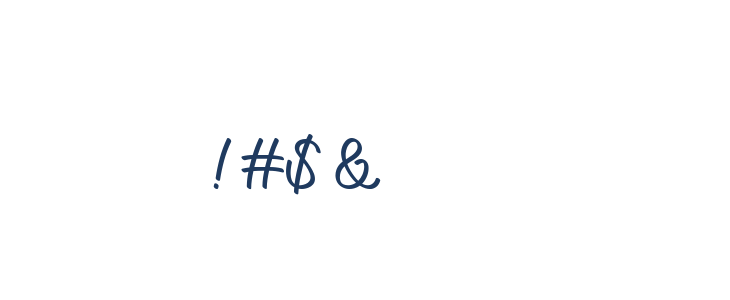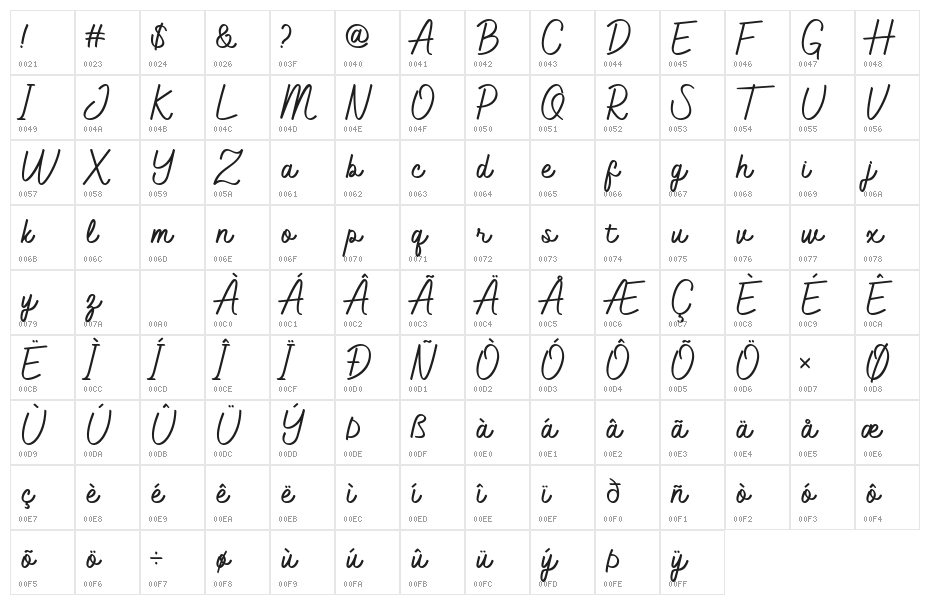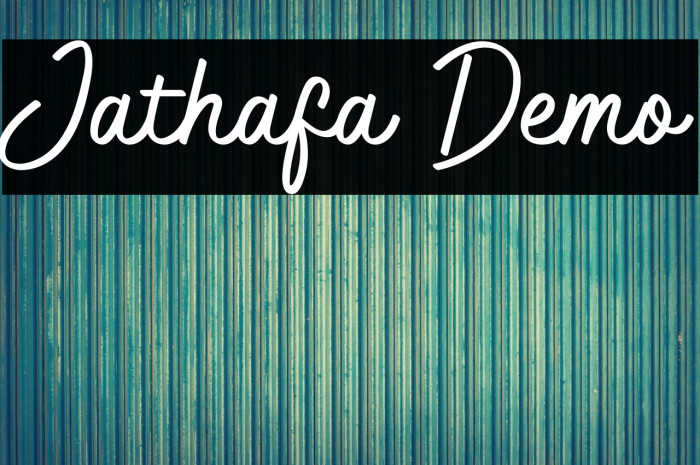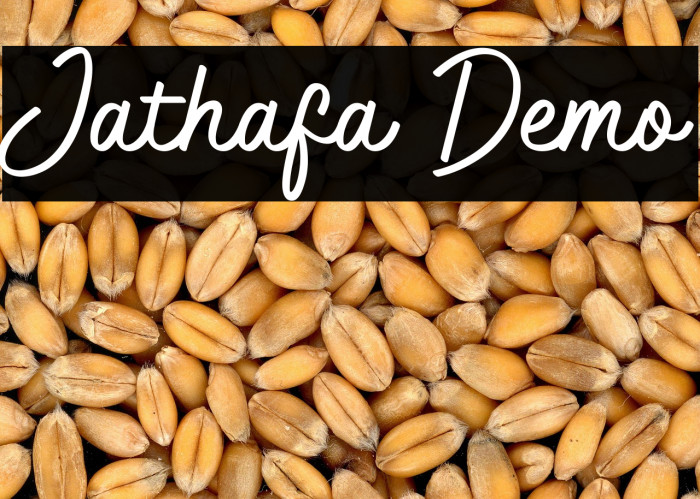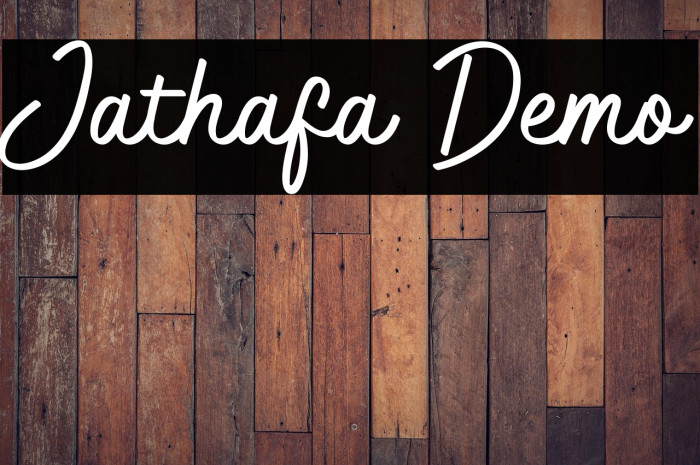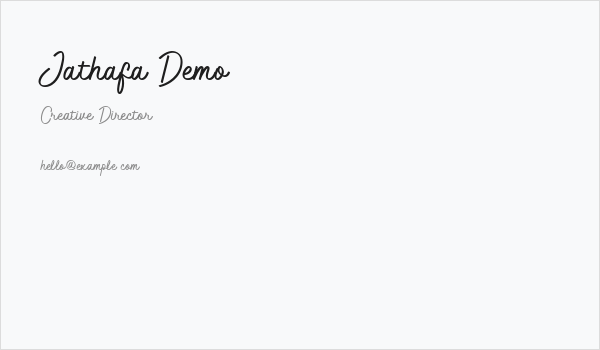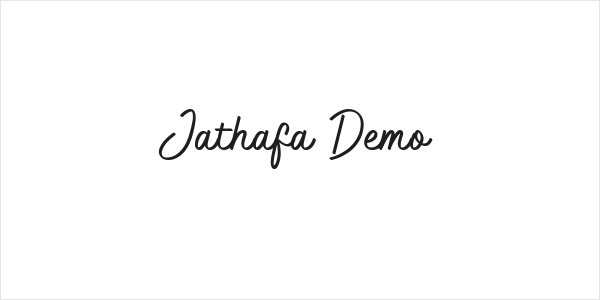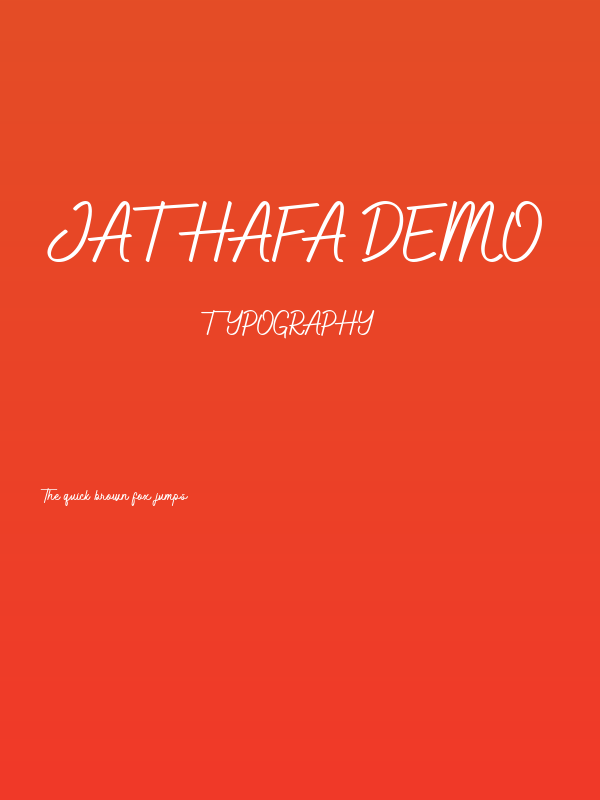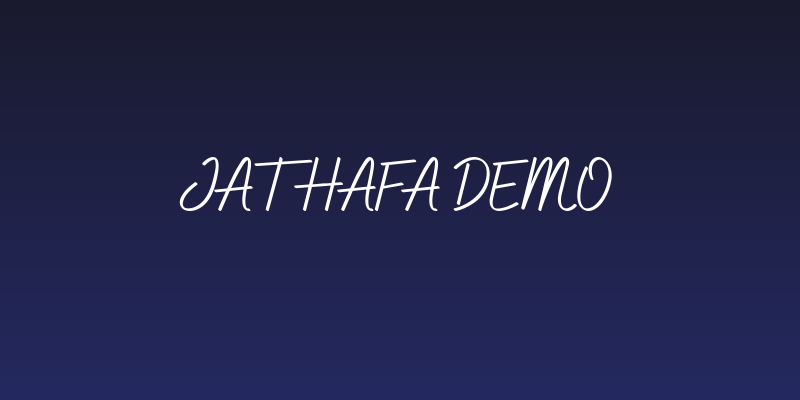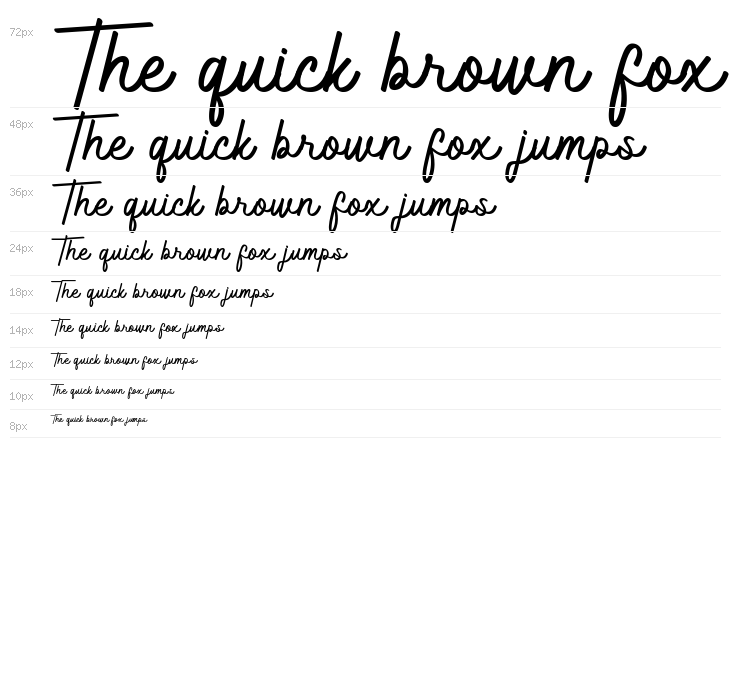
Jathafa Demo Font
Jathafa Demo Description
This font features a lively and flowing script style, characterized by its smooth, cursive strokes that mimic natural handwriting. The uppercase letters are elegantly elongated, while the lowercase letters maintain a consistent and harmonious flow. The font includes a full set of uppercase and lowercase letters, numerals, and a selection of special characters. Its design is both playful and sophisticated, making it suitable for a variety of creative applications. The strokes are moderately thick, providing good legibility while maintaining an artistic flair.
| Proposed Projects | Ideal for wedding invitations, greeting cards, branding, and social media graphics. |